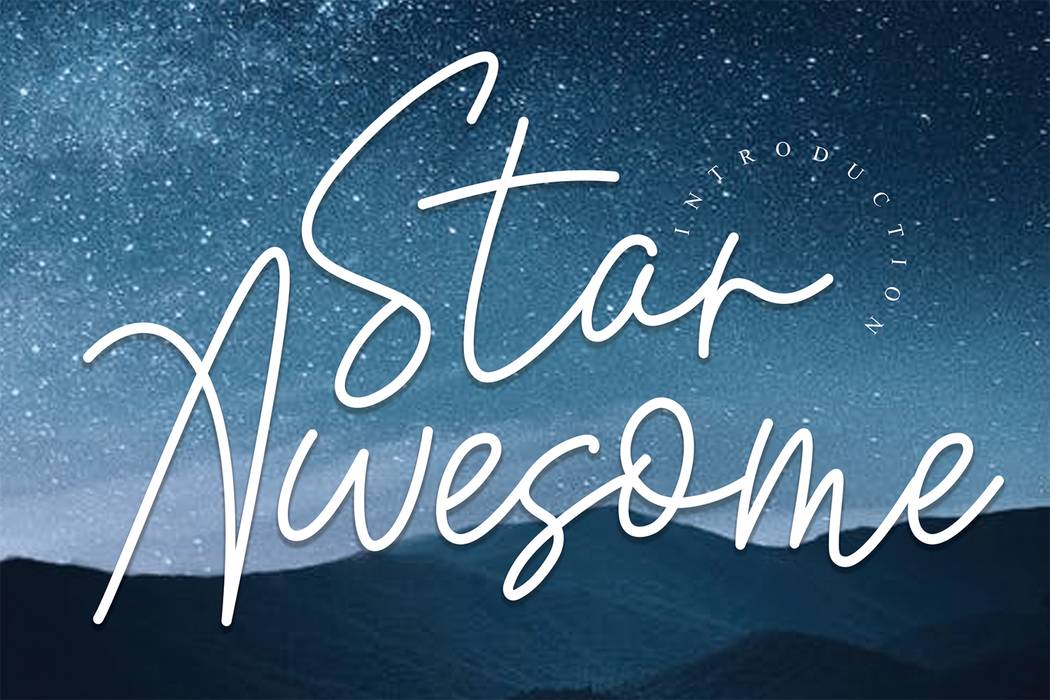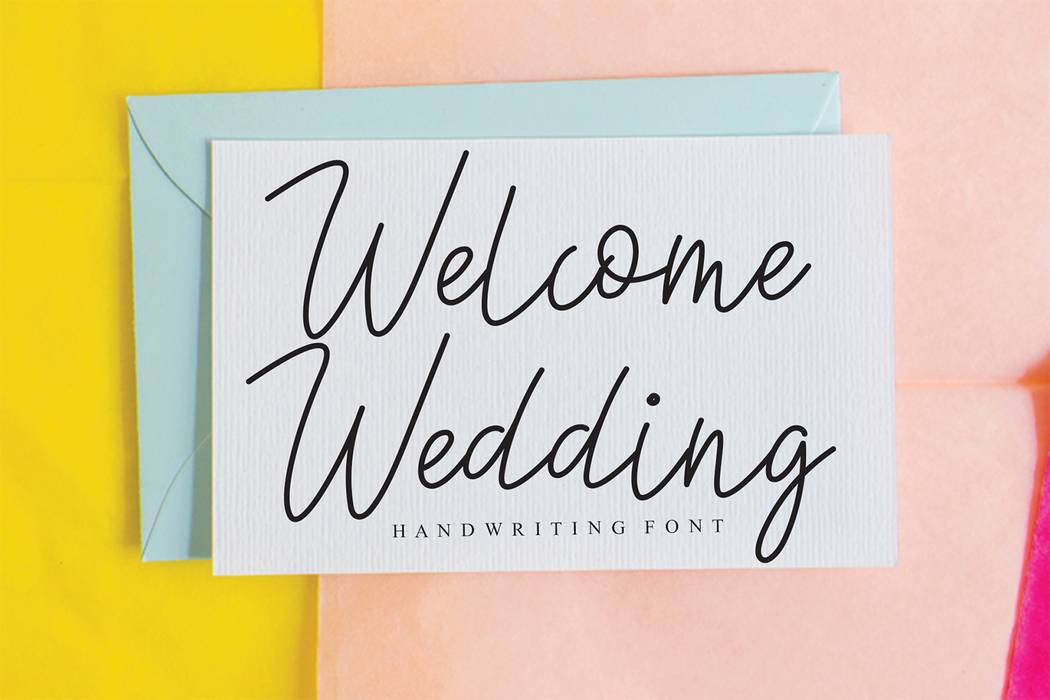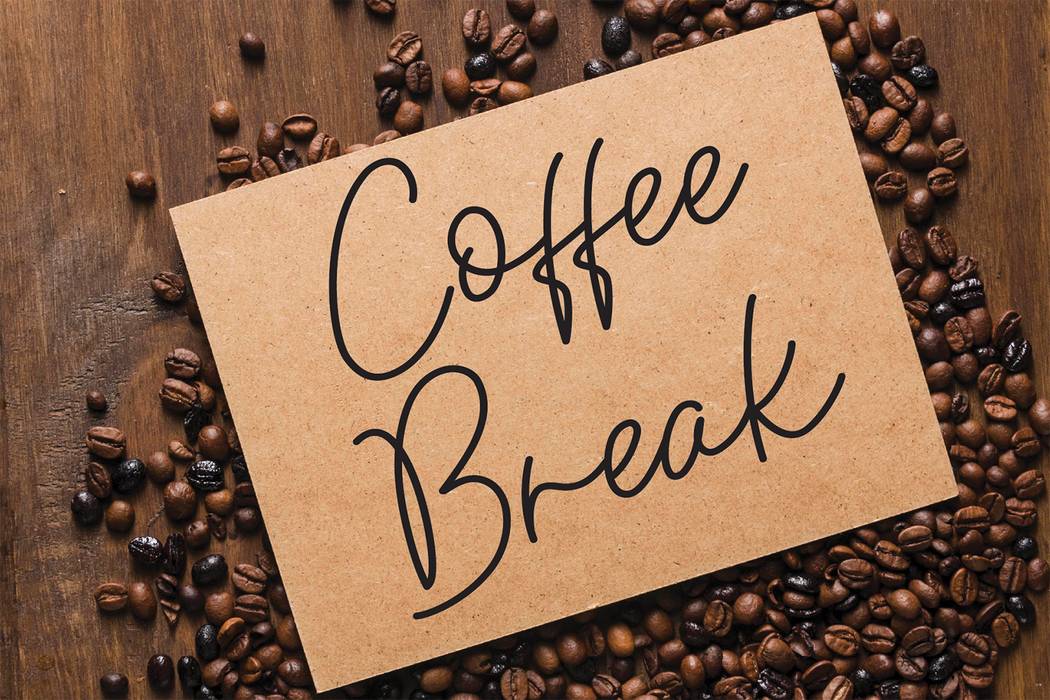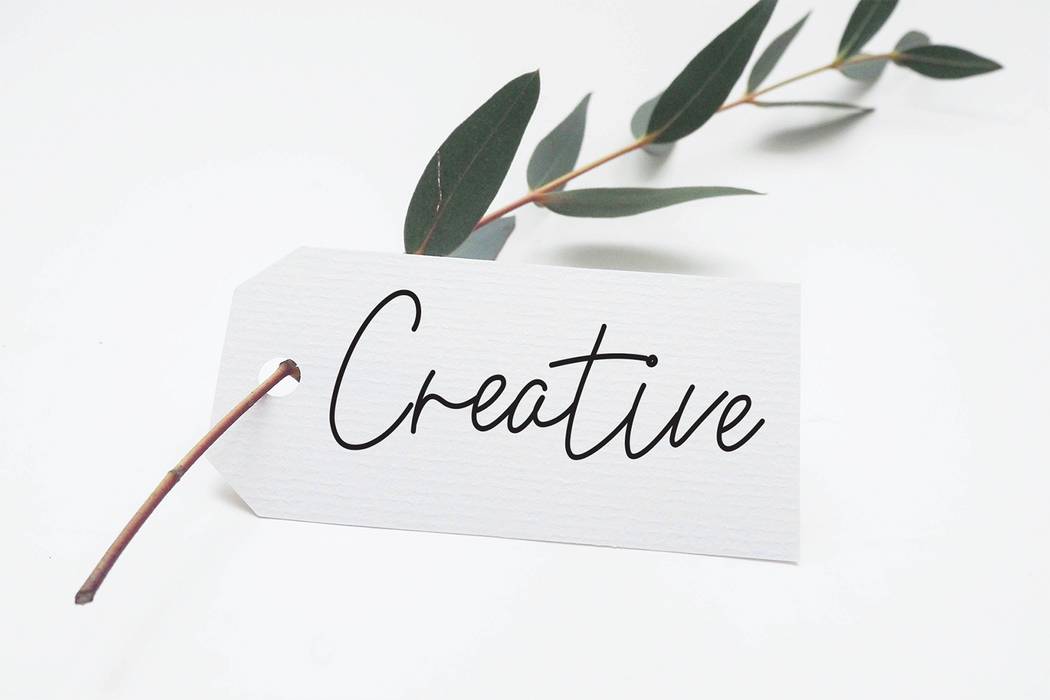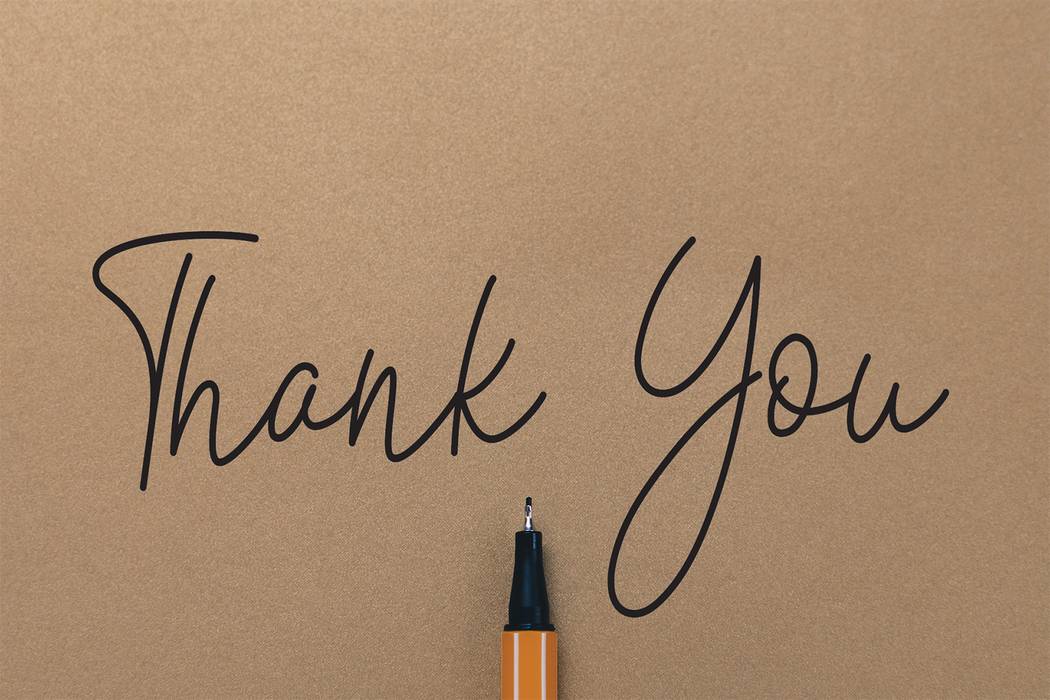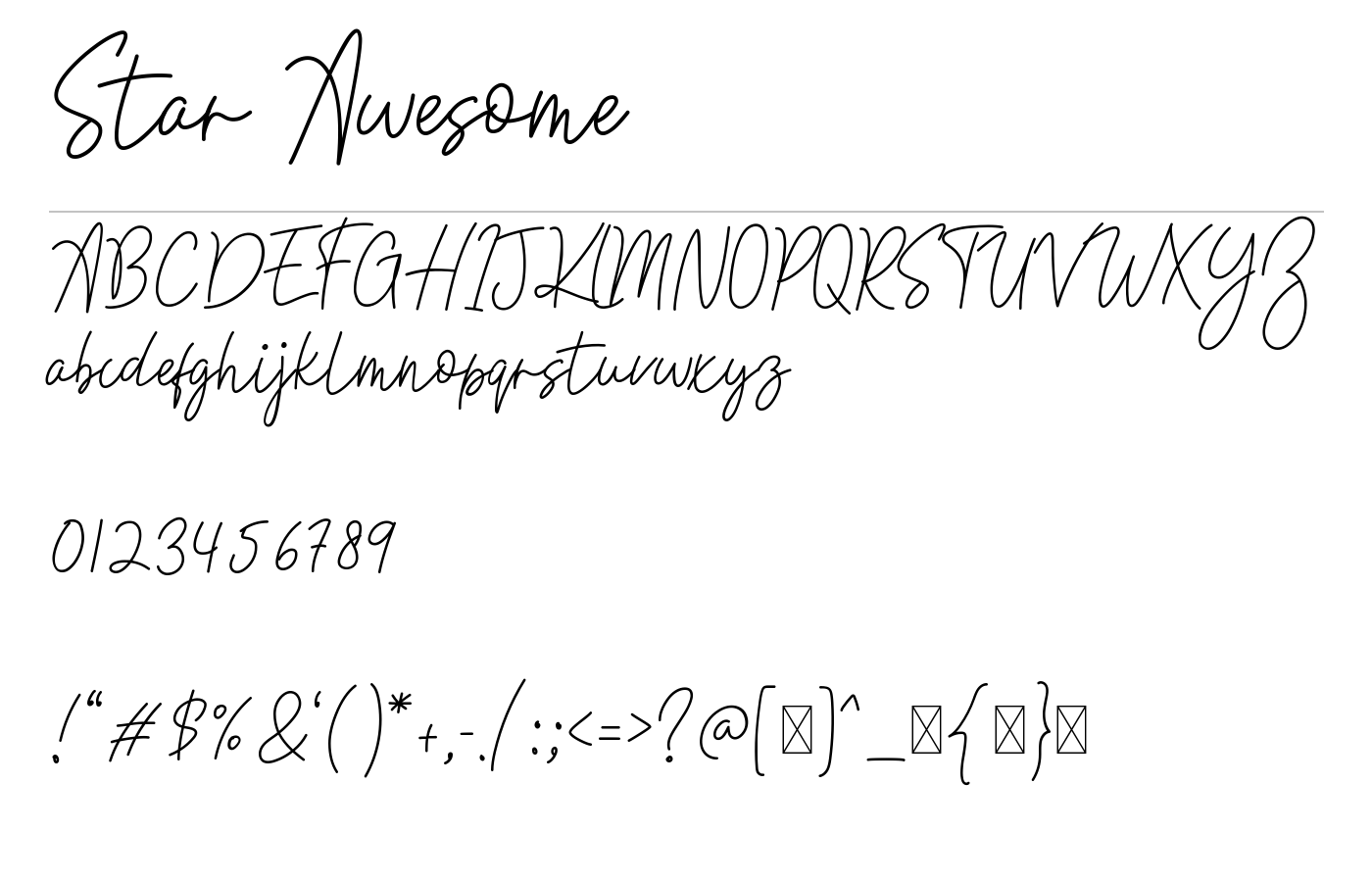
Star Awesome is a delicate, handwritten script font with a light and airy feel. Its thin, flowing strokes and casual letterforms give it a modern, friendly personality, making it perfect for creative projects like invitations, branding, and stylish headlines where a personal touch is desired. This font works well in designs that need elegance with an approachable, informal vibe.
Star Awesome Font